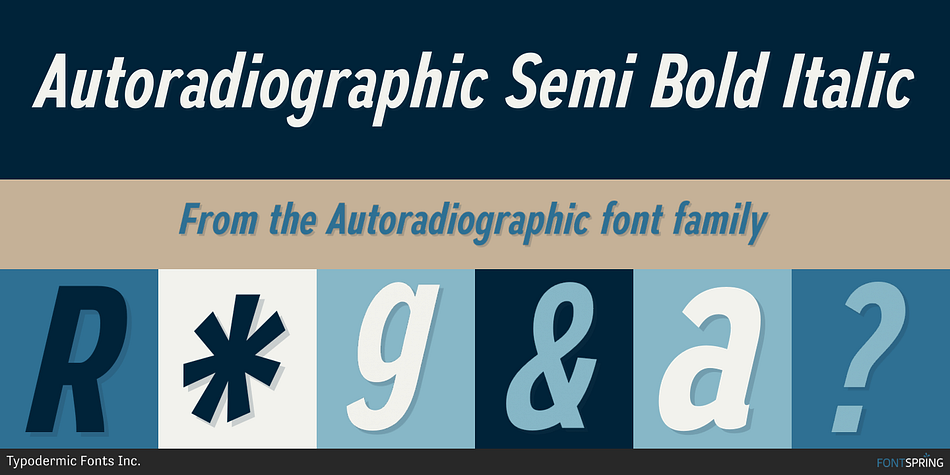
Autoradiographic Semi Bold Italic
Autoradiographic is a sans serif font family. This typeface has ten styles and was published by Typodermic Fonts Inc.
Ahoy there, folks! Have we got a typeface for you! It’s called Autoradiographic, and it’s inspired by those trusty old warning signs from back in the day. You know the ones…“Inflammable! Stay away!” And boy oh boy, does it have personality!
Back in the post-WWII era, low waistlines were all the rage—but let me tell you, strict waistline alignment was not. No, sir! That’s where Autoradiographic comes in. It’s informational, sure, but it’s also neat as a pin and chock full of personality.
And listen to this—Autoradiographic has everything you need to crunch those numbers like a pro. Mathematical symbols? Check. Fractions? Check. Currency symbols? Check, check, and check.
And for those times when you really want to make an impact, Autoradiographic’s italics are narrow and loosely spaced. Now that’s what I call a typeface with some serious sass!